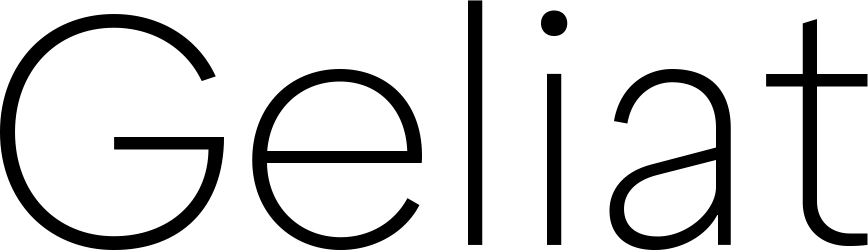
Geliat Font
If you would like to reach a contemporary, sociable, and playful typography, then utilizing Geliat font would be a very reasonable decision! That’s because this specific sans-serif font is available in 2 incredible weights. The characters have a geometric style to their design which looks smart and adorable.
As for the letterforms, this Geliat font offers mixed case alphabets, numbers, and punctuations. A few popular places to consider carrying out this fantastic font will be apps, games, books, texts, and headings.